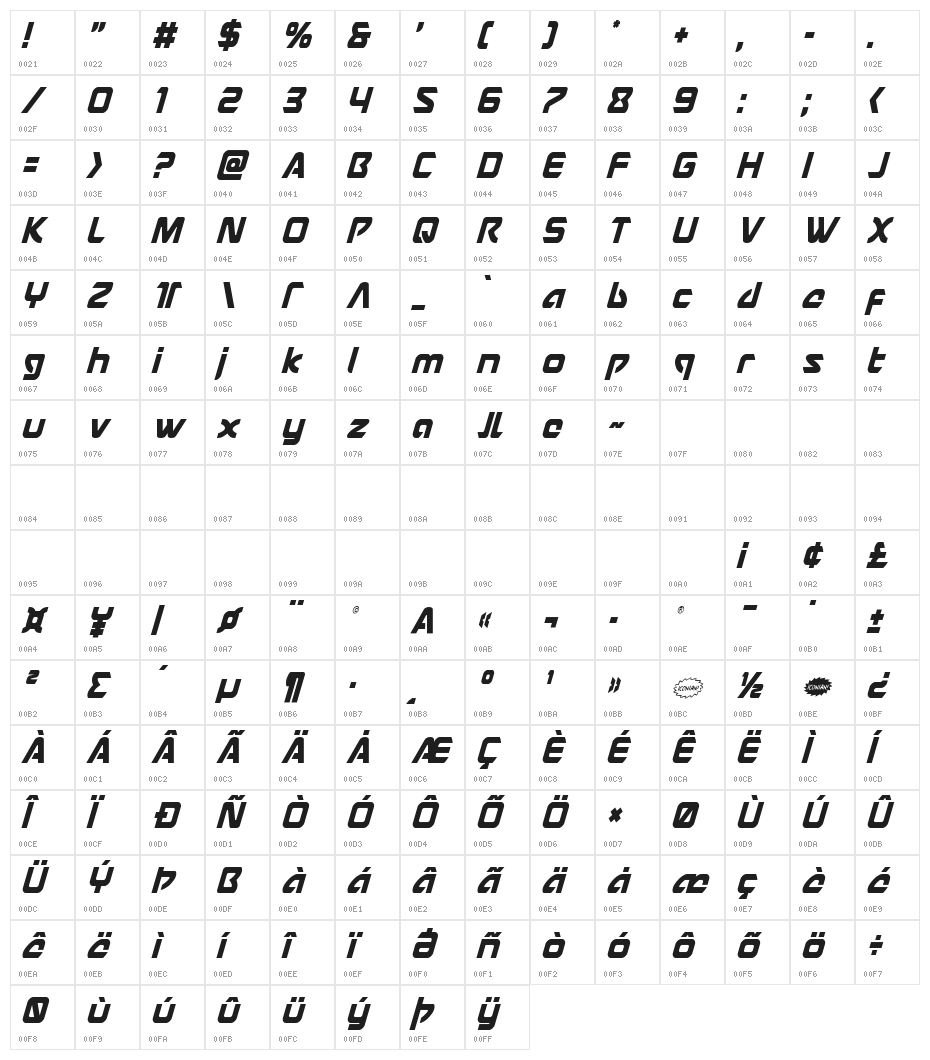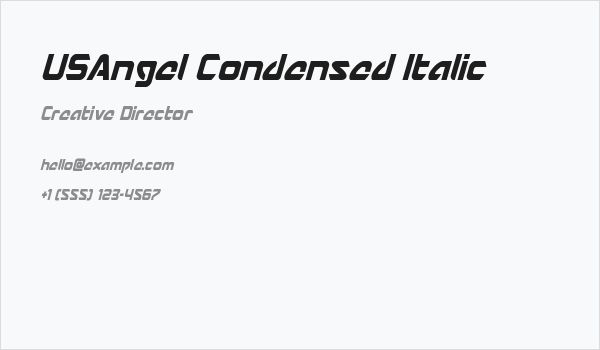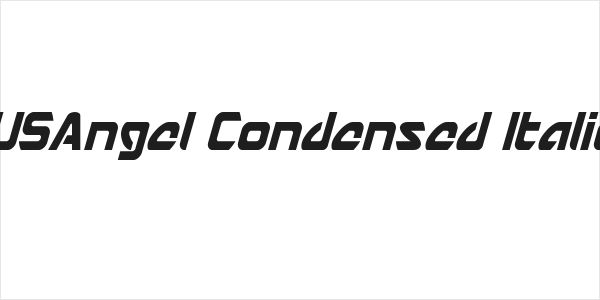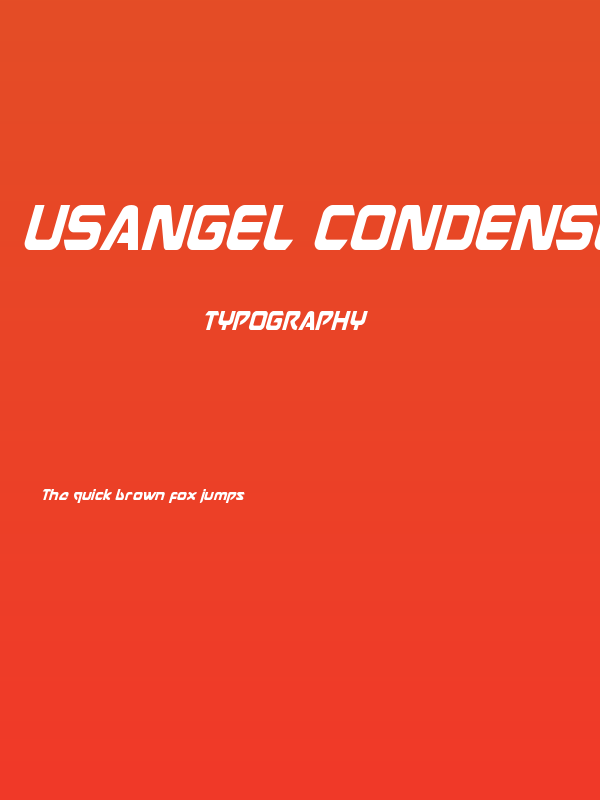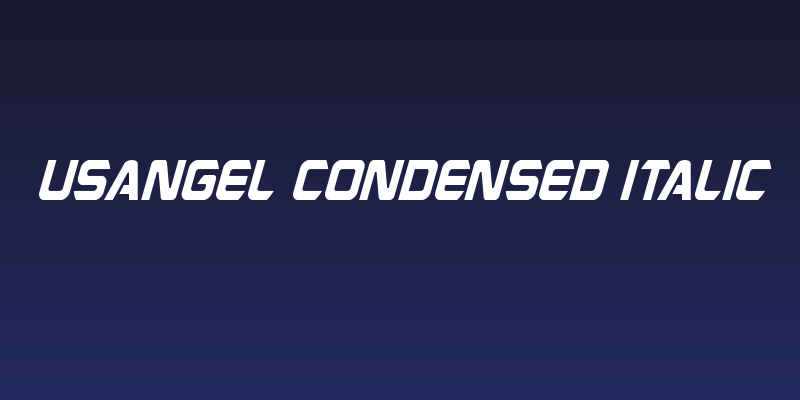
USAngel Condensed Italic Font
USAngel Condensed Italic Description
This font features a sleek, modern design with a condensed and italicized style. The characters are bold and angular, giving a dynamic and futuristic appearance. The uppercase and lowercase letters maintain a consistent slant, enhancing the italic effect. The numbers and special characters follow the same design principles, ensuring uniformity across all glyphs. The font's condensed nature allows for efficient use of space, making it ideal for headlines or titles where impact is essential. Its bold strokes and sharp edges contribute to a high contrast, making it stand out in various design contexts.
| Proposed Projects | Ideal for futuristic branding, tech-related projects, sports team logos, and dynamic advertising campaigns. |